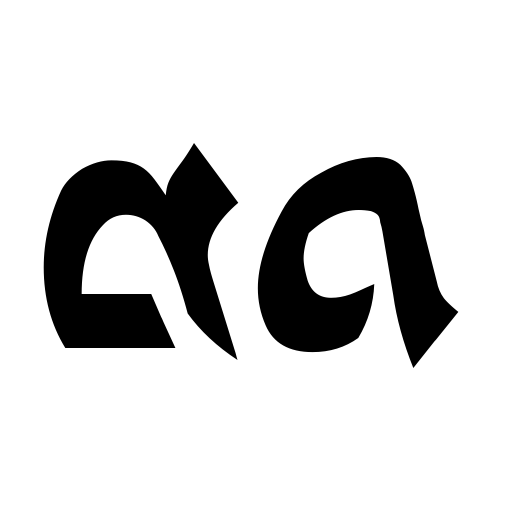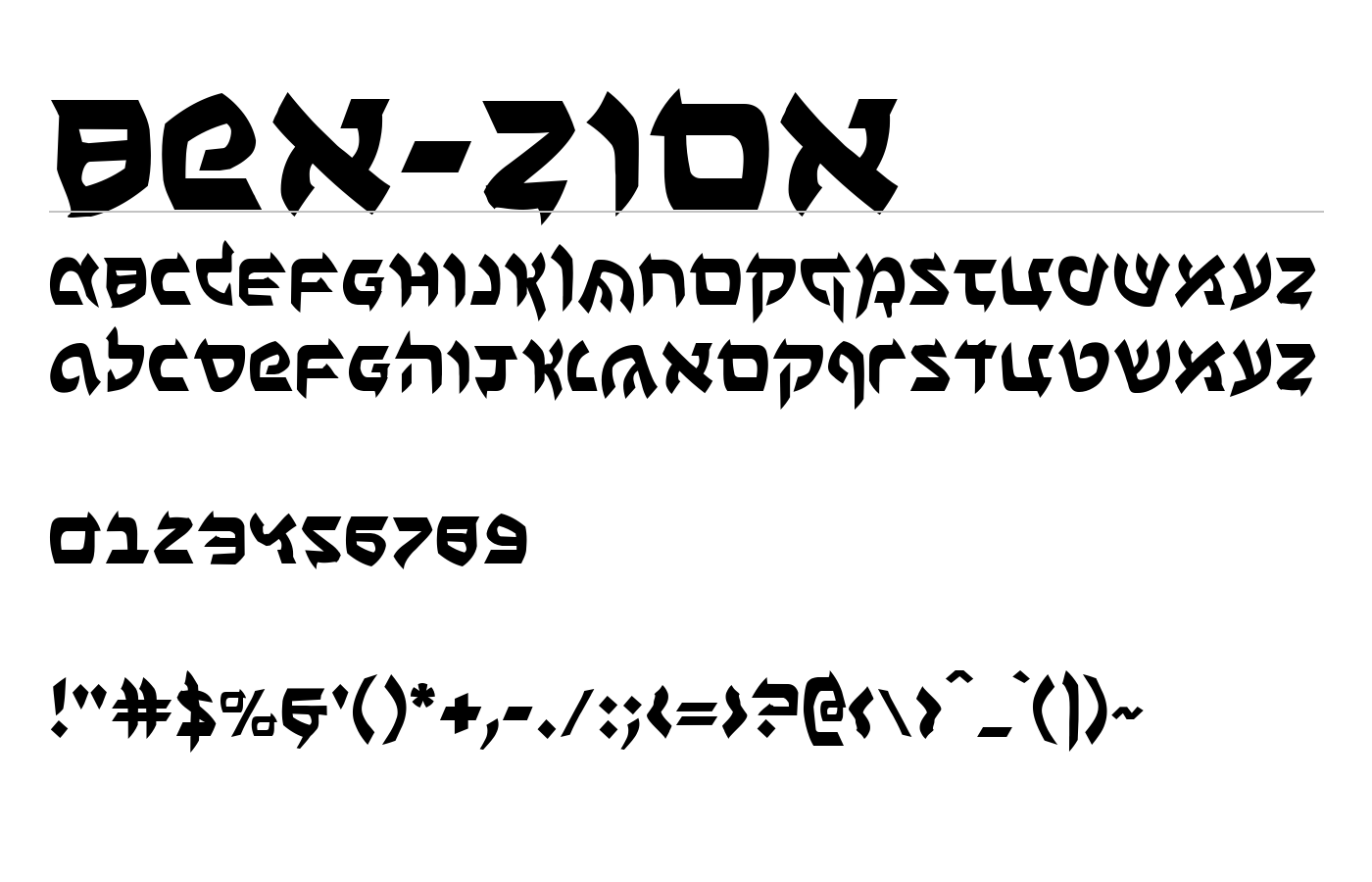
Ben-Zion is a bold, angular display font that blends an edgy, almost gothic character with modern geometric shapes, making it stand out with sharp strokes and unique letterforms. Its strong, compact design and striking personality make it ideal for logos, posters, or branding that seeks to convey power and distinctiveness with a touch of artistic flair. This font works best in headline or decorative uses where its dramatic style can command attention and set a bold tone.
Ben-Zion Font
About Ben-Zion Font